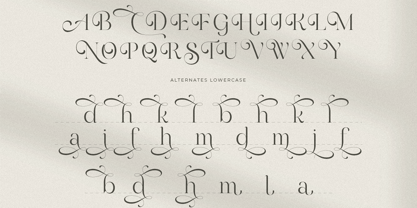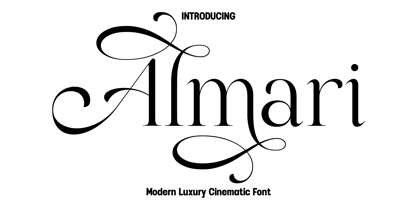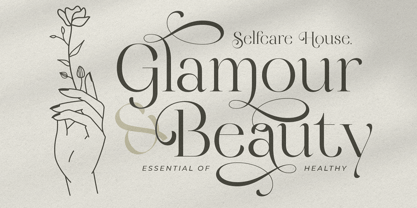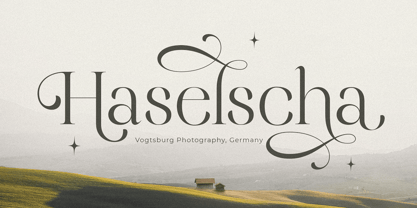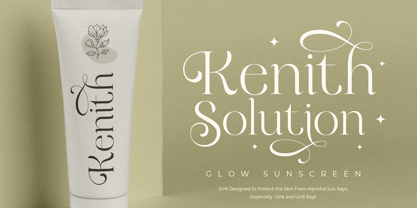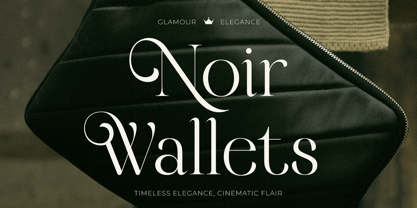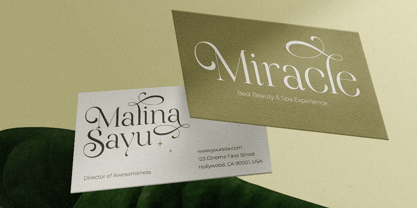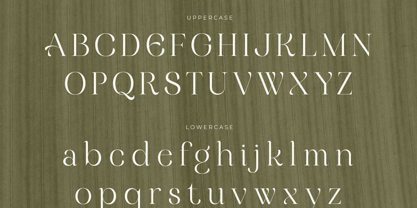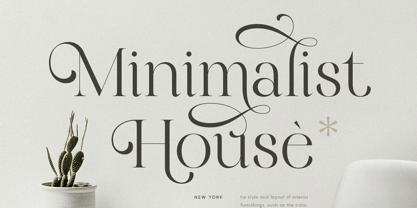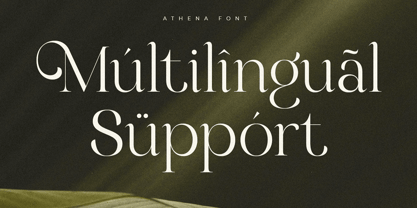
Almari
The Almari Font Family was designed by Olivia Love and published by Only Fonts. Almari contains 1 styles. More about this family
Almari – Modern Luxury Cinematic Font
Almari is a modern luxury cinematic font created to bring elegance, drama, and timeless sophistication to your creative projects. Inspired by premium movie titles, luxury fashion editorials, and contemporary high end branding, Almari features refined letterforms with graceful proportions that create a striking visual presence. Every character is carefully crafted to balance cinematic beauty with modern minimalism, making it the perfect typeface for designs that demand attention and refinement.
Perfect for film titles, luxury branding, fashion campaigns, editorial layouts, book covers, premium packaging, perfume labels, jewelry collections, hotel branding, invitations, posters, websites, and elegant marketing materials, Almari delivers a polished appearance across both print and digital media. Its sophisticated structure creates memorable headlines while maintaining exceptional readability and visual harmony.
Designed for creative professionals who value versatility, Almari includes stylish alternative characters that provide greater flexibility for custom typography, unique logos, and distinctive brand identities. Whether you are creating a cinematic title sequence, launching a luxury product, or developing an elegant visual identity, Almari helps you achieve a premium and unforgettable result with ease.
With its harmonious blend of modern aesthetics and cinematic elegance, Almari transforms ordinary typography into an artistic statement filled with luxury, creativity, and timeless appeal. It is an essential addition to every designer's font collection for projects that require sophistication, exclusivity, and visual impact.
Almari Font Features:
• Elegant alternative characters
• Modern luxury cinematic style
• Uppercase and lowercase letters
• Numerals, punctuation, and symbols
• Multilingual support
• Perfect for movie titles, luxury branding, editorials, packaging, invitations, websites, and premium marketing materials
• Suitable for both print and digital projects